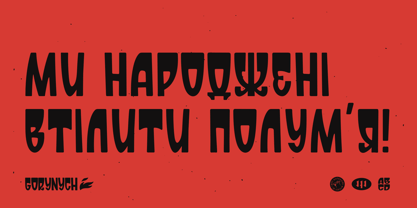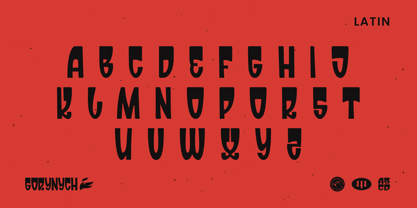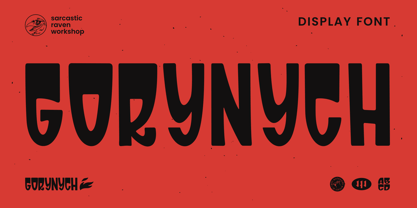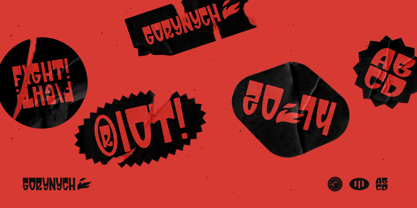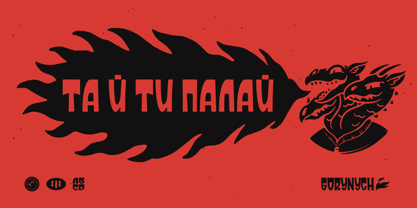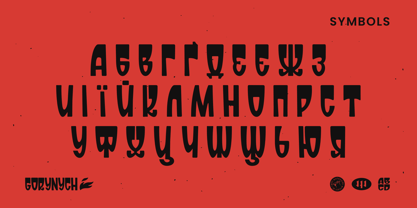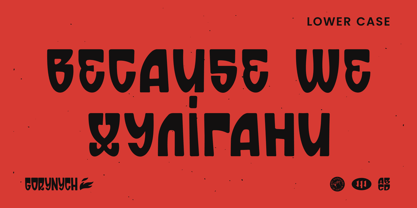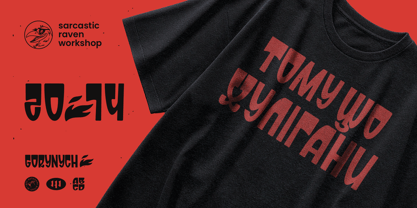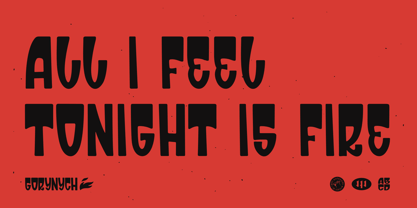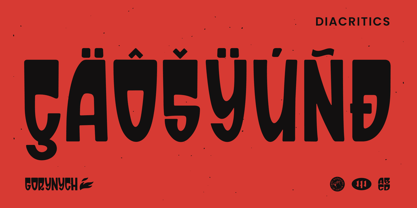
The Gorynych typeface draws inspiration from street culture, youthful energy, and the raw spirit of underground poster art rooted in Eastern European visual traditions. Its sharp shapes, dynamic rhythm, and bold character create a powerful visual presence that instantly captures attention. Designed for expressive typography, Gorynych works perfectly in striking headlines and bold layouts. It’s a great choice for posters, banners, logos, album covers, merchandise, and other creative projects that demand a distinctive and memorable visual voice.